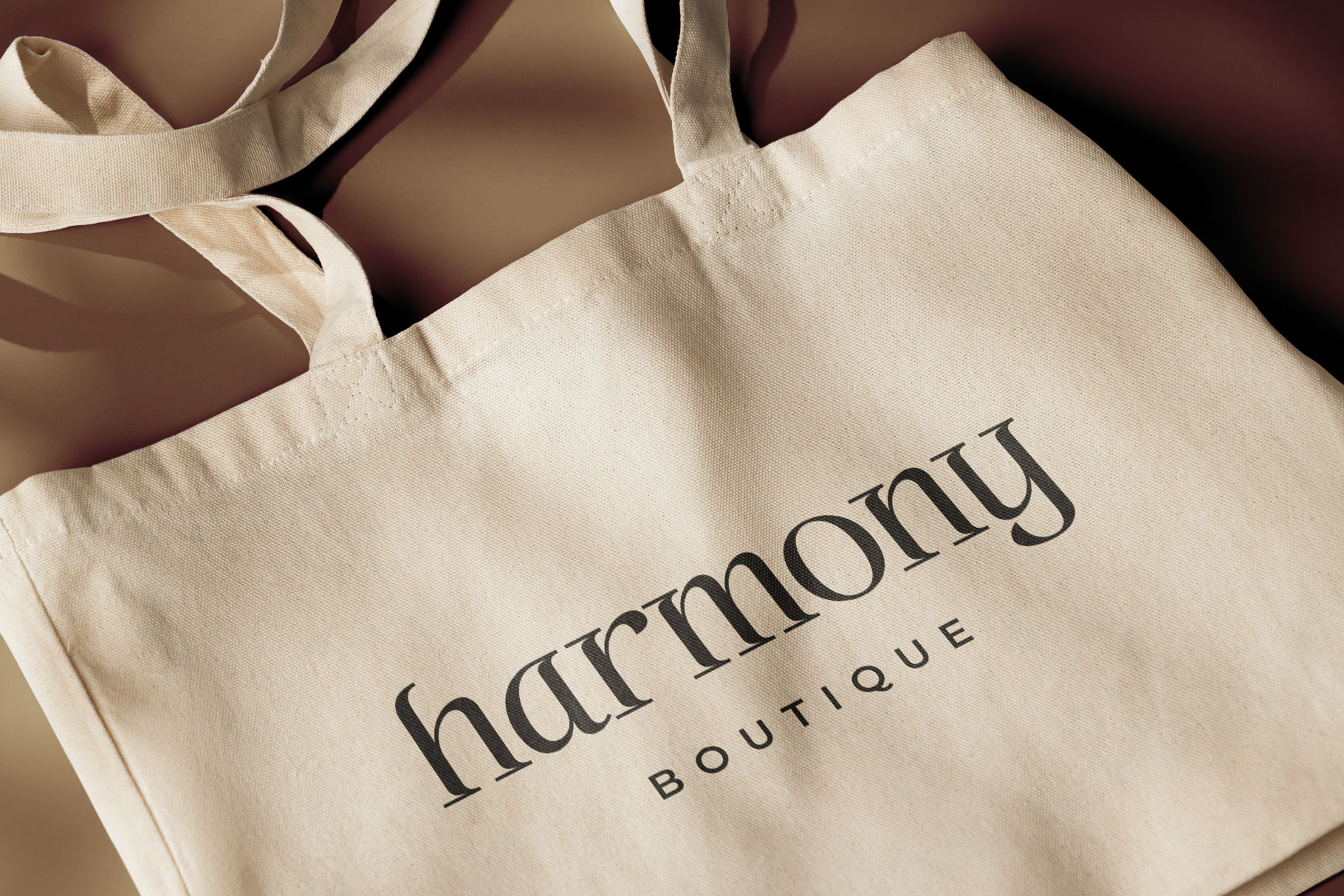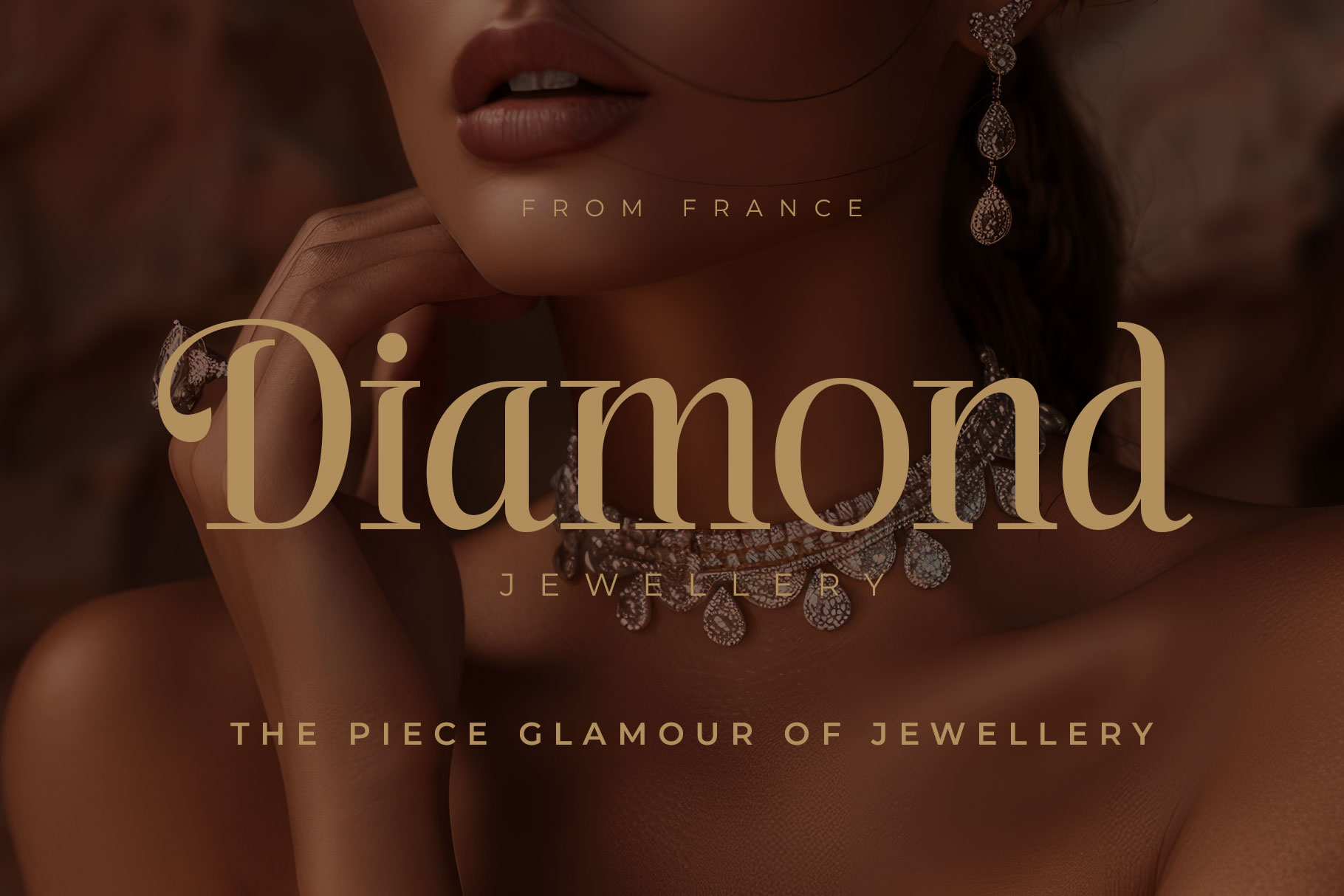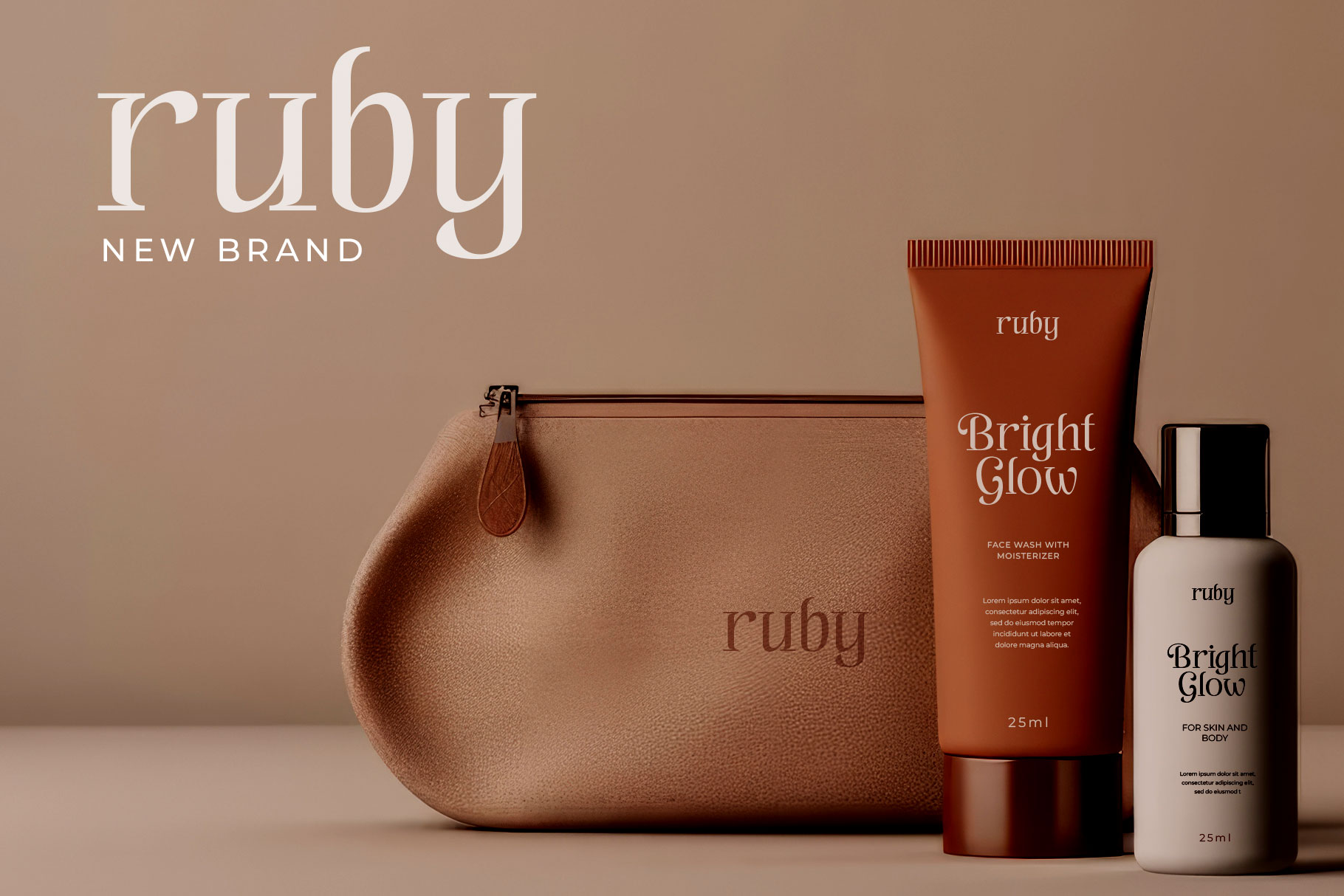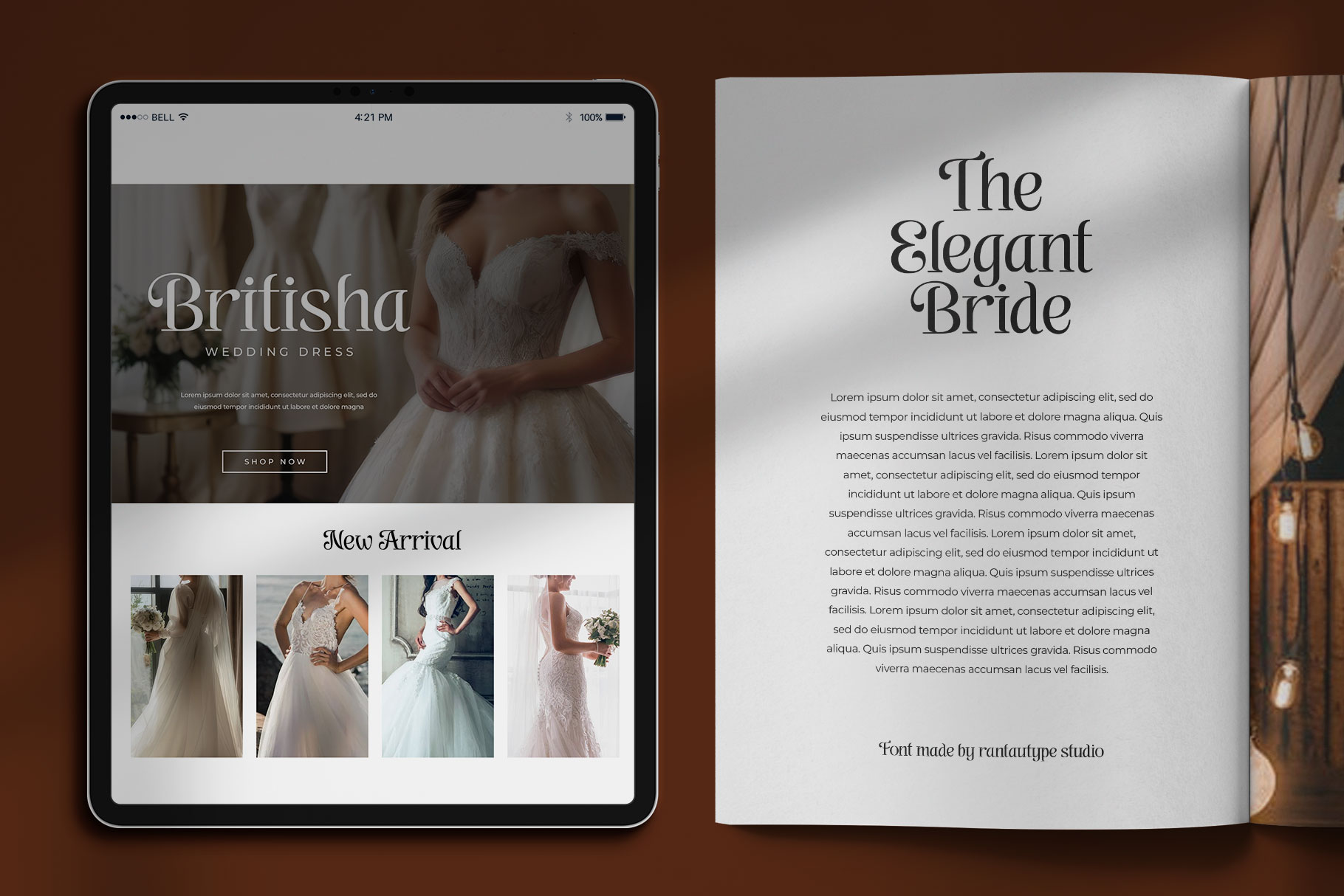
Raniega Modern Display Serif Font
Raniega is modern serif font with a graceful soul. Raniega come with beautiful Uppercase shape and each character have horizontal accents that create a memorable impression.
Raniega is a perfectly choice for any creative endeavor, creating elegant, modern, chic, lifestyle design such as logotype, title, cover, branding, invitations, wedding designs, display and magazine, social media posts, advertisements, printed quotes, product packaging, corporate brand, product designs, labels, photography, watermarks, special events and any other project with elegant touch.